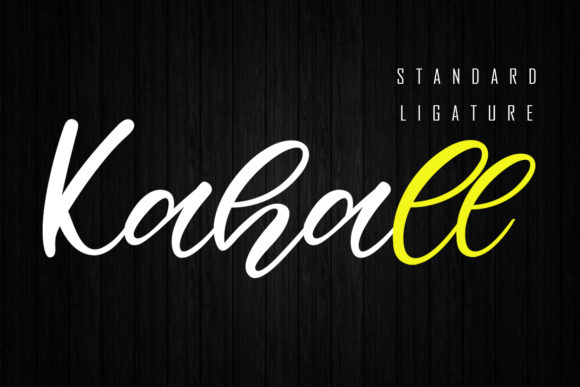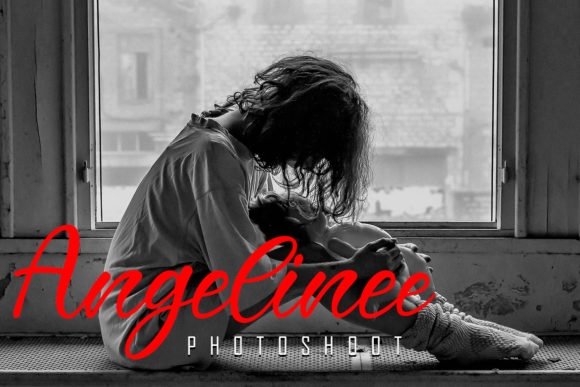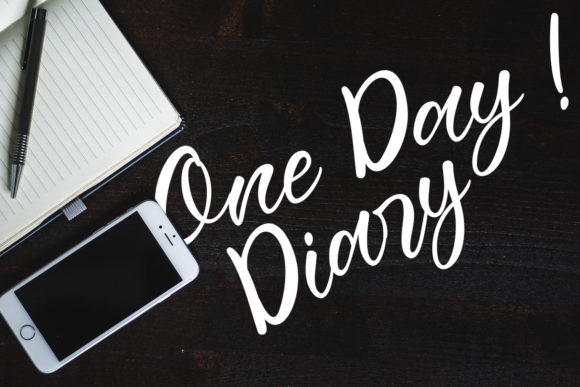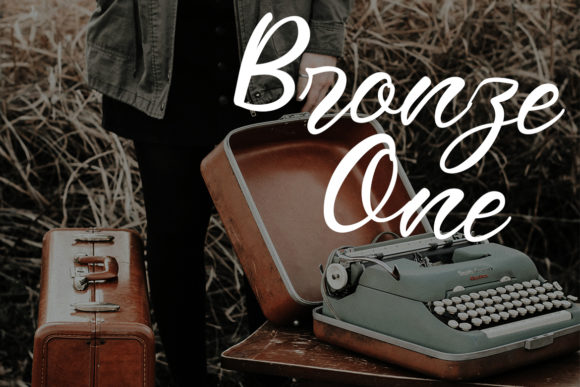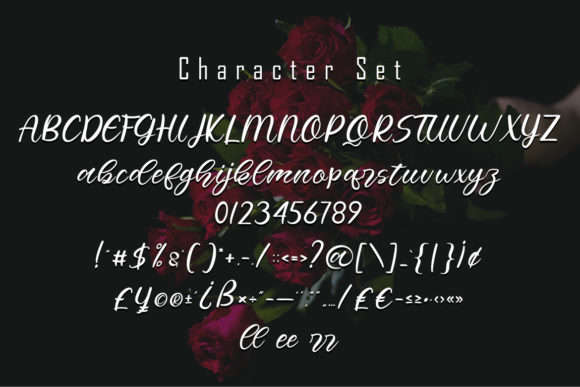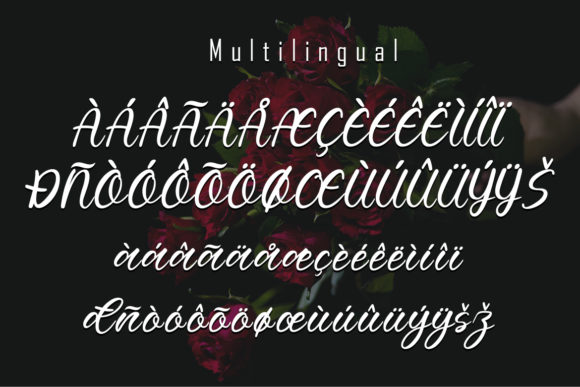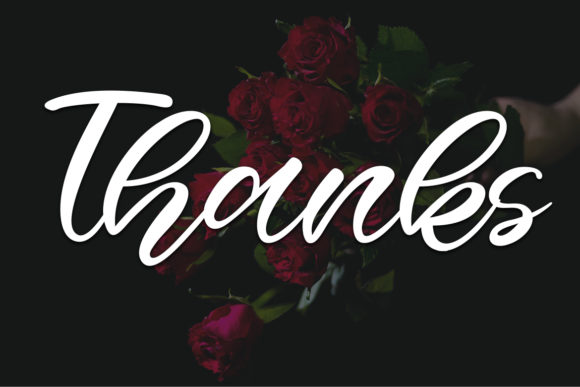
Rahiyan Font
About Rahiyan Font
Rahiyan is a beautiful handwritten font. It features great ligatures that make this script incredibly versatile. Whether you’re looking for fonts for Instagram or calligraphy scripts for DIY projects, Rahiyan will turn any creative idea into a true piece of art!